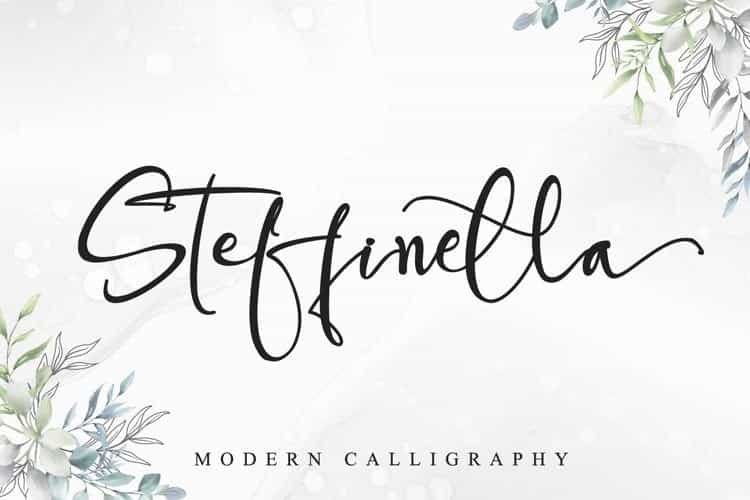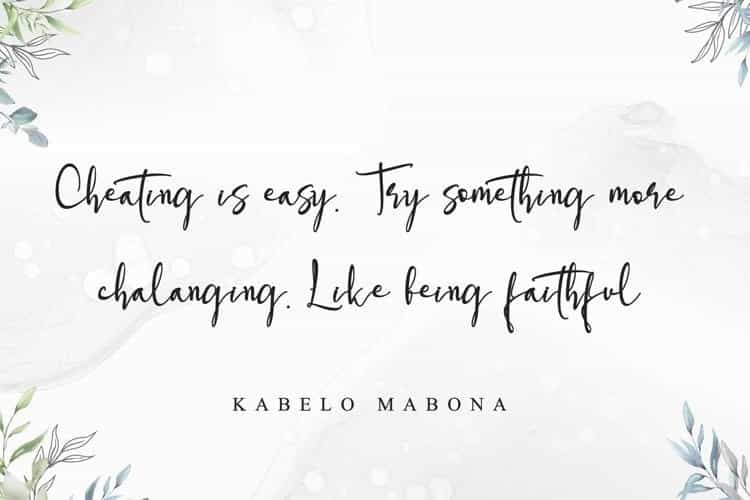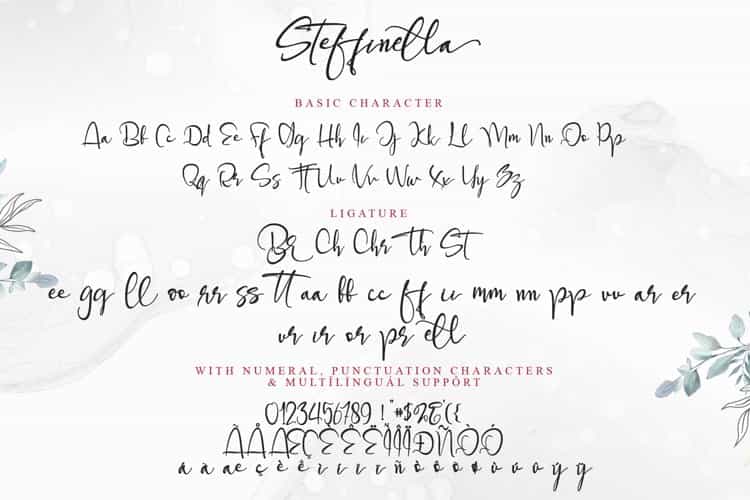
Discover Steffinella Handwritten Font, part of the Calligraphy Handwritten collection—a versatile and unique font perfect for adding a personal touch to your projects. Download it for free and enjoy crafting designs with style, from invitations to social media posts. This font is available exclusively for personal use, giving you the freedom to create without limits. Unlock your creativity with Steffinella Handwritten Font today!
Steffinella is a hand-written font that is carefully designed with elegance. It is so Lovely, Modern, Romantic, Beauty, Feminine… can you love it every minute you use them! Steffinella fonts allow you to create wedding invitations, wedding stationery, DIY projects, wrappers, fashion textile patterns, textures, posters, wedding decorations, gifts, quotes on a blog or wall paper – just about everything including stickers.